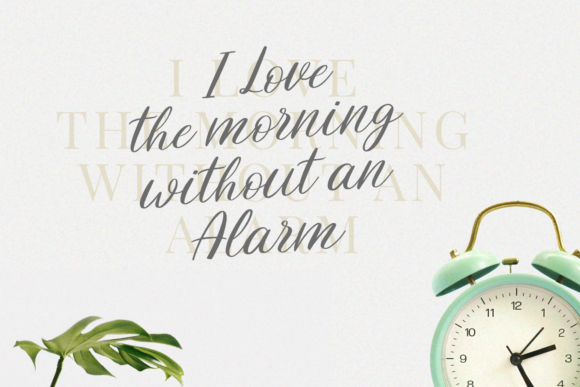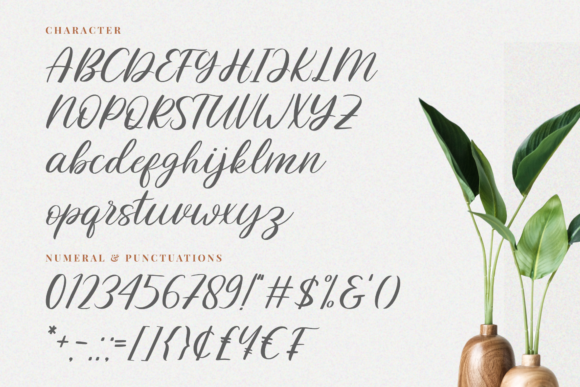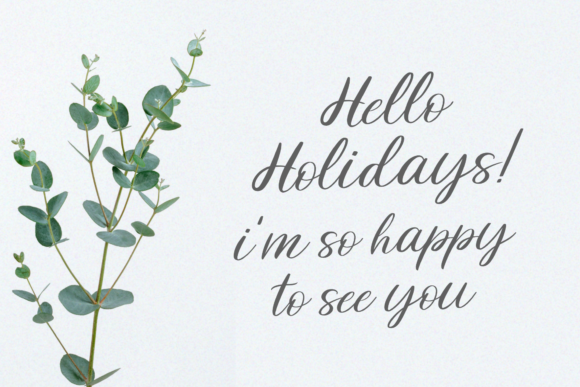
The Perfect Harmony for Your Holiday Designs
Have you ever sat down with a blank page, surrounded by twinkling lights and festive cheer, only to feel like your creative spark is missing that special something? For designers, it’s a familiar feeling – the pressure to craft the perfect holiday campaign or card, all while making it stand out from the crowd.
| 👤 Author | Hayletter Creative |
That’s where the Holiday Melody Font comes in – a charming script font that adds a touch of magic to your most creative ideas. Its playful characters seem to dance along the baseline, creating a whimsical feel that’s sure to capture the essence of the season. Whether you’re designing holiday cards, posters, or social media graphics, the Holiday Melody Font is the perfect addition to make your designs truly shine.
As a valuable tool for designers, the Holiday Melody Font offers a unique opportunity to infuse your work with a sense of joy and wonder. Its versatility and charm make it a must-have for anyone looking to elevate their holiday designs and leave a lasting impression on their audience.
Holiday Melody Font Key Features
- Font Family: Holiday Melody is a unique, hand-drawn font designed to evoke the spirit of the holiday season.
- Size: Holiday Melody font comes in 4 different font sizes: Regular, Bold, Italic, and Bold Italic.
- Unique Characteristics: Features a whimsical, cursive design with intricate details and ornaments, making it perfect for holiday-themed designs, invitations, and packaging.
- Character Set: Includes a comprehensive set of characters, including uppercase and lowercase letters, numbers, and punctuation marks.
Review: Holiday Melody Font
I recently had the chance to work with the Holiday Melody Font, and I must say it’s a delightful addition to any holiday-themed project. ✨ The font’s playful, cursive style instantly evokes a sense of cheer and festivity, making it perfect for designing Christmas cards, gift tags, or even festive social media posts.
Here are some of the things that work well with this font:
- ✨ Unique and festive style that sets it apart from more generic holiday fonts
- ✨ Wide range of character options, including uppercase and lowercase letters, numbers, and punctuation
- ✨ Easy to read and recognize, even in smaller font sizes
- ⚠️ May not be suitable for formal or professional projects due to its playful, whimsical style
Overall, I’m quite impressed with the Holiday Melody Font. While it may not be the most versatile or sophisticated font out there, it’s perfect for adding a touch of holiday magic to your designs. With a little creativity and experimentation, you can use this font to create truly unique and eye-catching projects.
Use Holiday Melody Font for:
– Holiday greeting cards and invitations.
– Seasonal advertisements and promotions.
– Winter-themed social media posts and graphics.
For best results, use the font in combination with bold and colorful graphics to create a festive atmosphere.